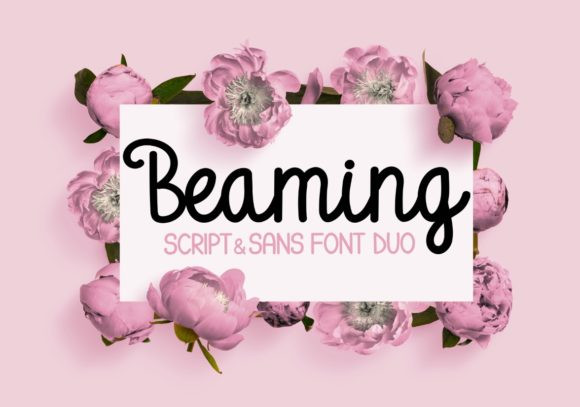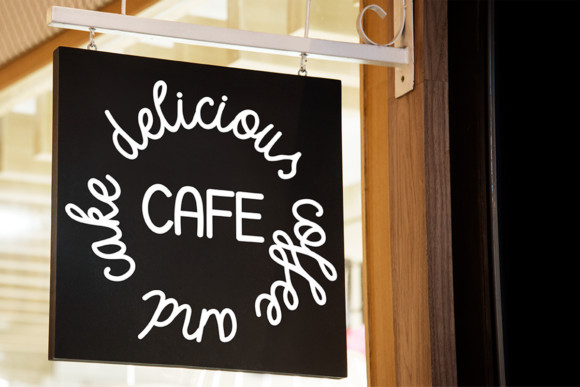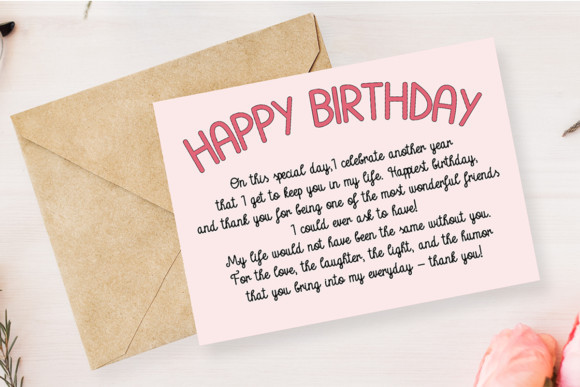
Beaming Font
Beaming duo is a match made in heaven, the sans of script font will perfectly complement each other. Combining these two fonts on your next design will give it an elegant feel.